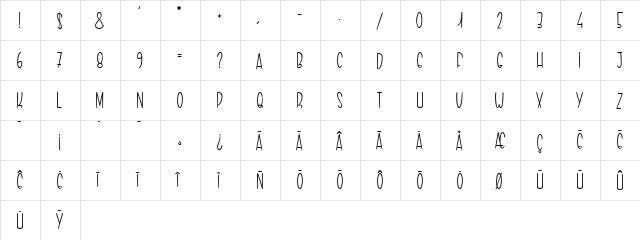
THE BEST THINGS IN LIFE ARE FREE Regular
Design Context for THE BEST THINGS IN LIFE ARE FREE Typeface
THE BEST THINGS IN LIFE ARE FREE offers clean, dependable letterforms without strong stylistic allegiance, making it a practical choice for designers who need flexibility. Its slender proportions lend an understated elegance to any composition.